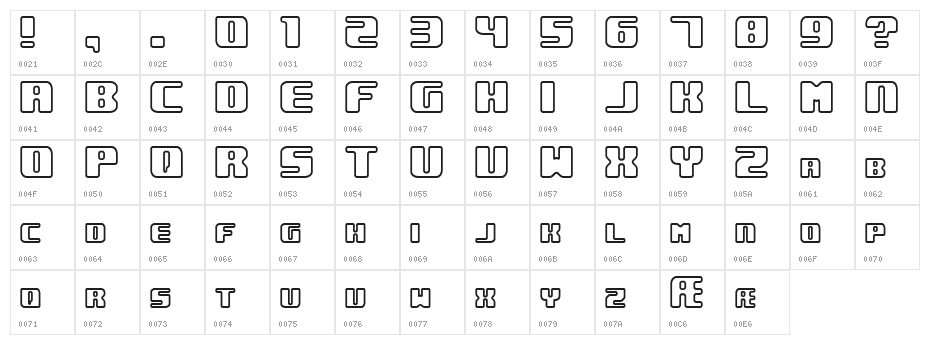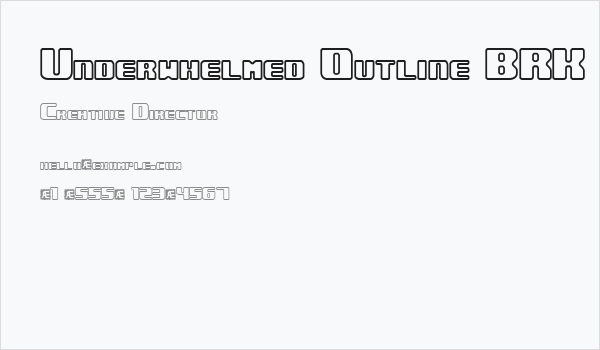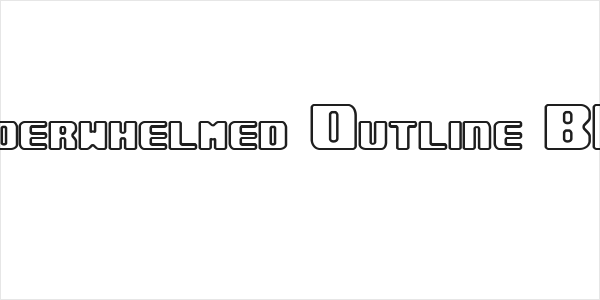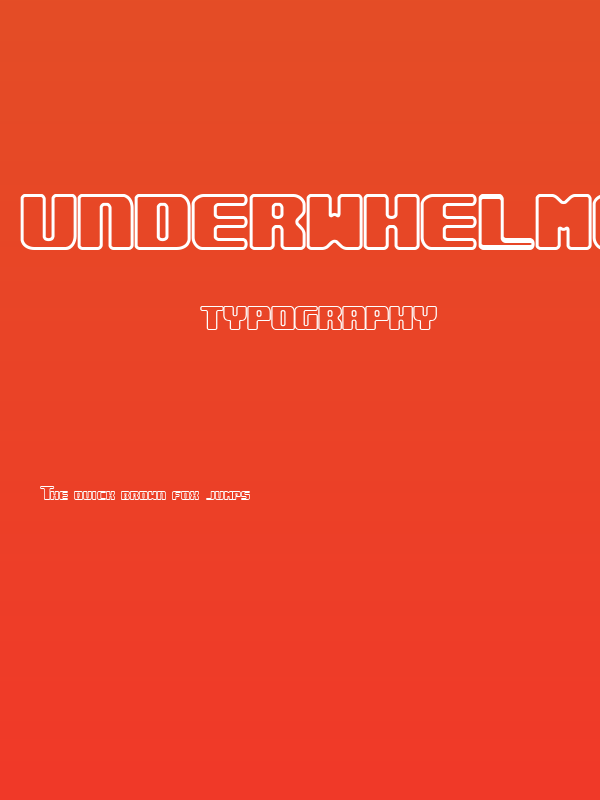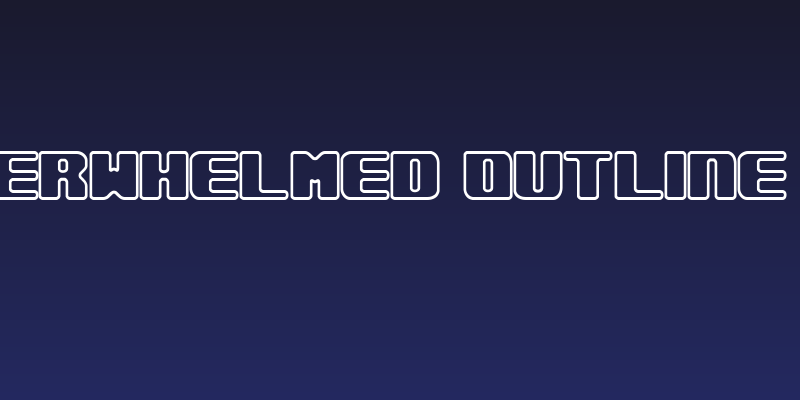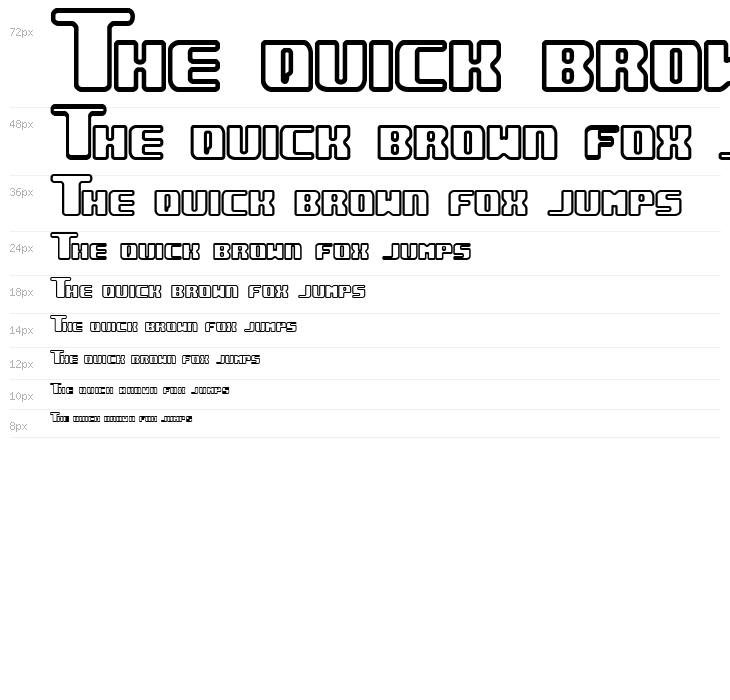
Underwhelmed Outline BRK Font
Underwhelmed Outline BRK Description
This font features a bold, outlined style with a geometric and blocky appearance. The characters are uppercase and have a uniform thickness, creating a strong visual impact. The outline design gives it a modern and playful feel, making it suitable for eye-catching displays. The spacing between characters is consistent, ensuring readability while maintaining its distinct style. The font's unique outline effect adds a layer of depth, making it ideal for projects that require a standout typeface.
| Proposed Projects | Ideal for posters, logos, headlines, and any design needing a bold, standout typeface. |